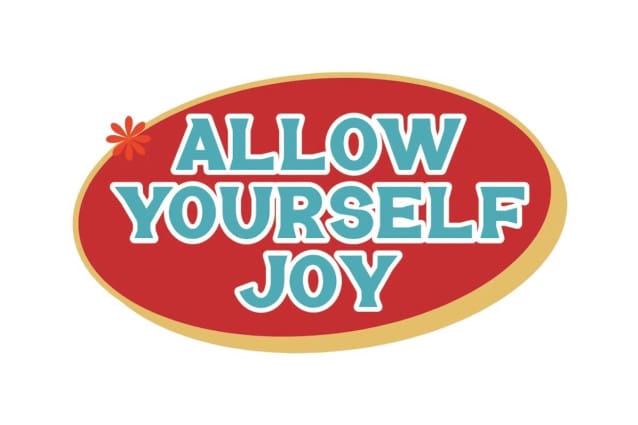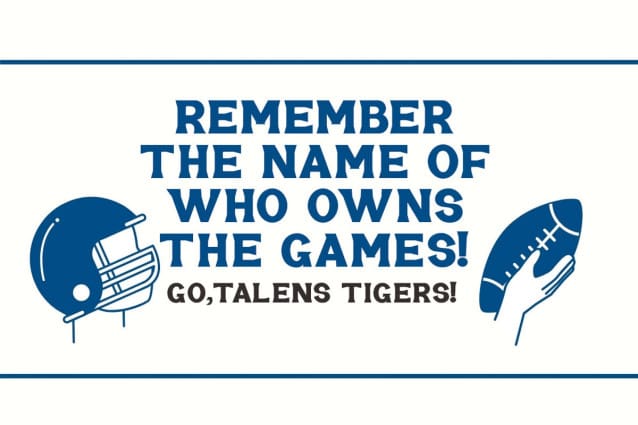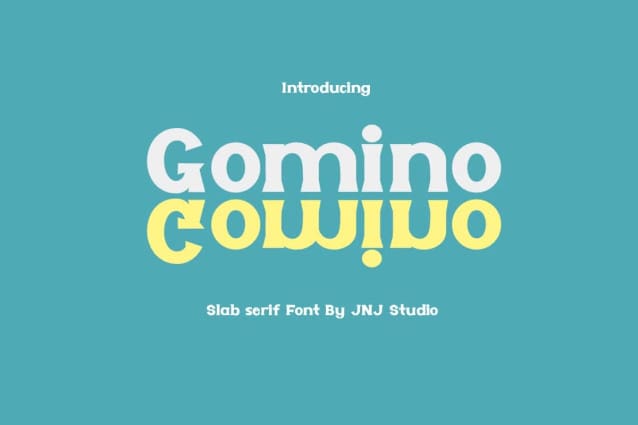
Gomino Font
Gomino Font is a modern slab serif font that combines strength and versatility, making it ideal for bold headlines and impactful displays. Characterized by thick, solid strokes and prominent serifs, Gomino conveys confidence and stability. Its clean lines and balanced proportions give it a professional look, yet it maintains a hint of playfulness, suitable for both traditional and contemporary designs. The font’s slight curves and even spacing make it highly legible, while its sturdy design elements ensure it stands out in branding, editorial, and advertising projects. Gomino is versatile enough for both print and digital formats, lending a timeless, sophisticated touch to any project.